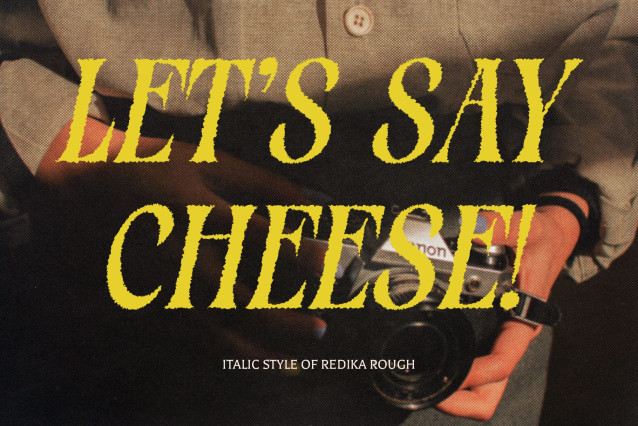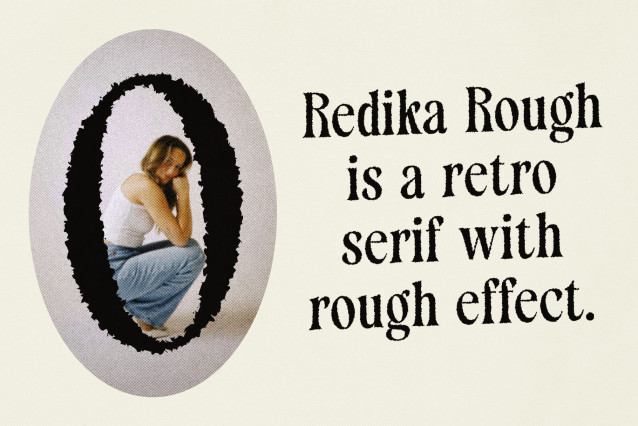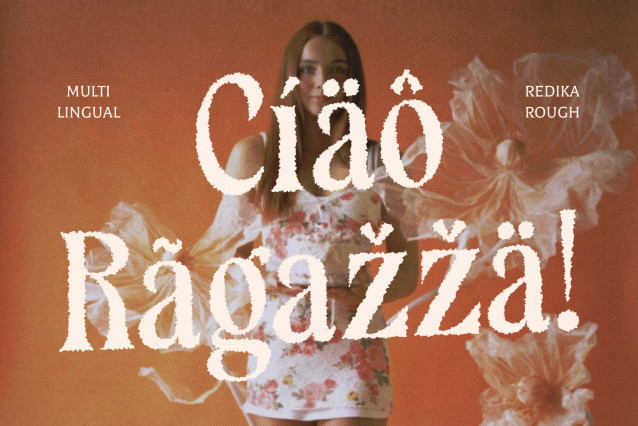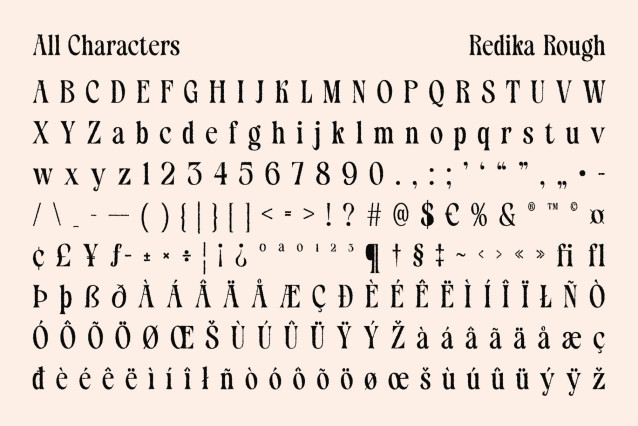
Redika Rough Font
Redika Rough Font – Timeless Elegance with a Textured Soul
Modern Meets Classic in Refined Form
RedikaRough Font beautifully blends the charm of classic serif design with a clean, modern sensibility. Its elegant letterforms feature graceful curves and crisp lines, offering a look that is both polished and captivating. This fusion creates a versatile serif font that feels equally at home in contemporary or traditional design contexts.